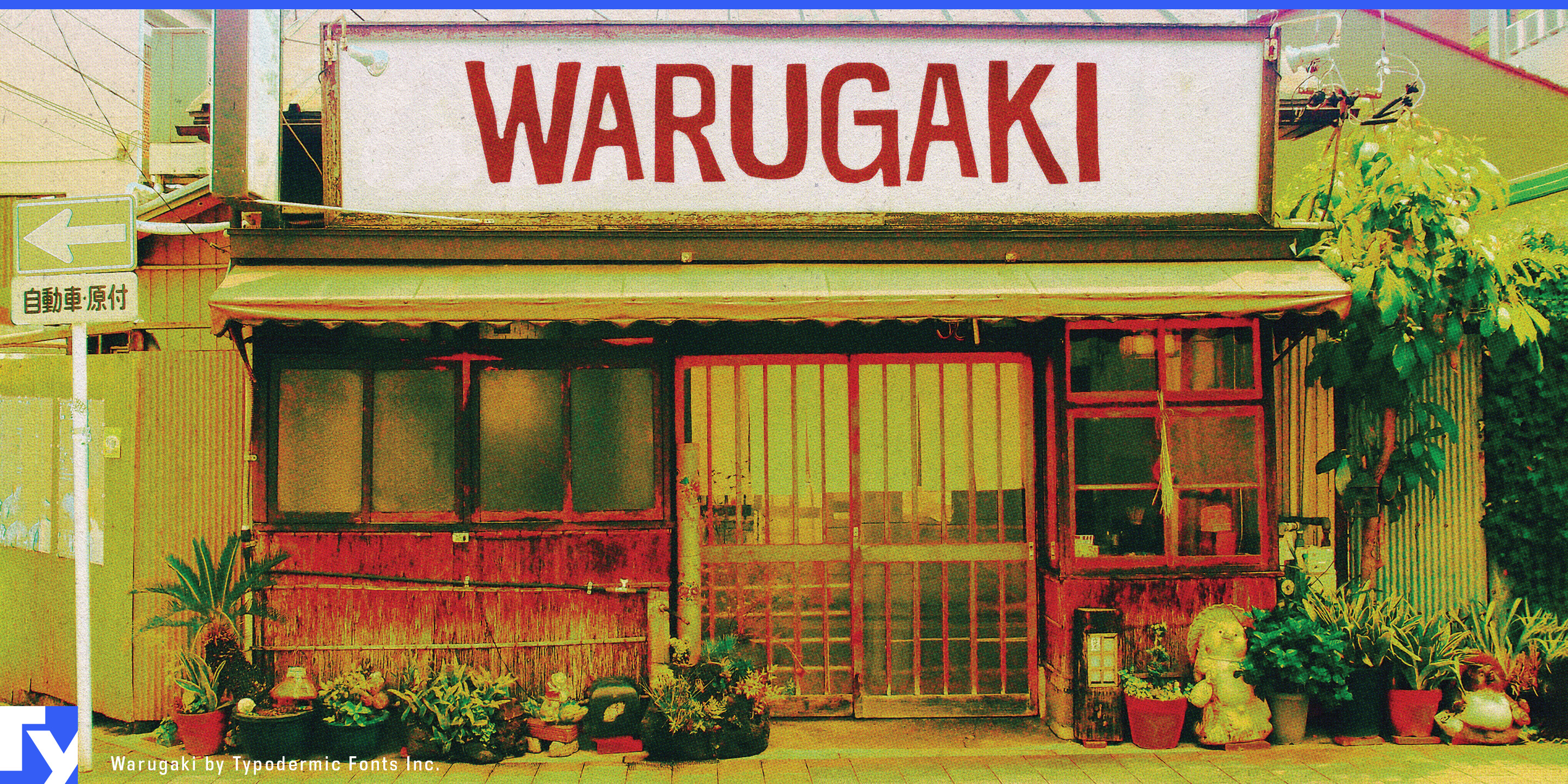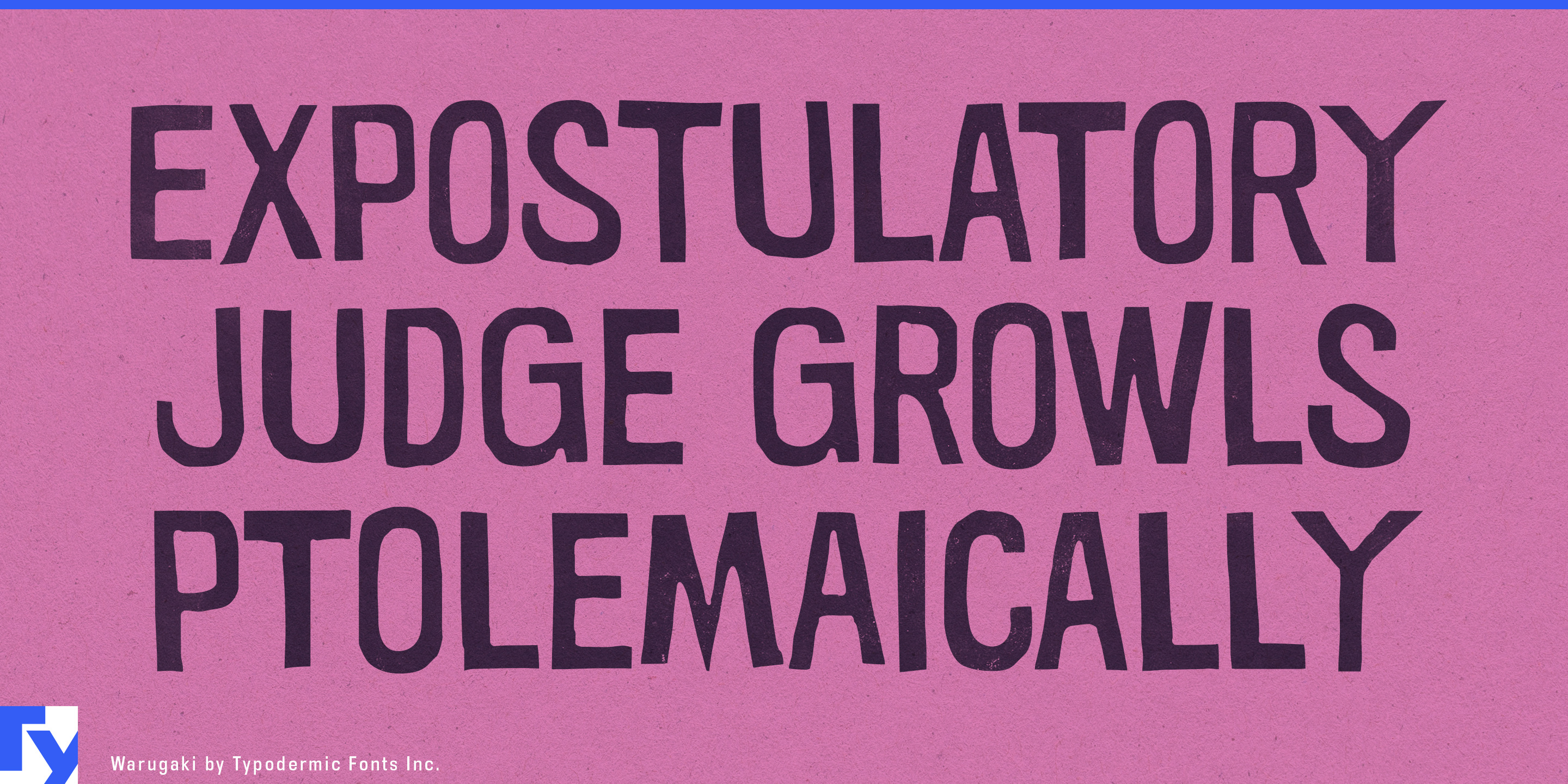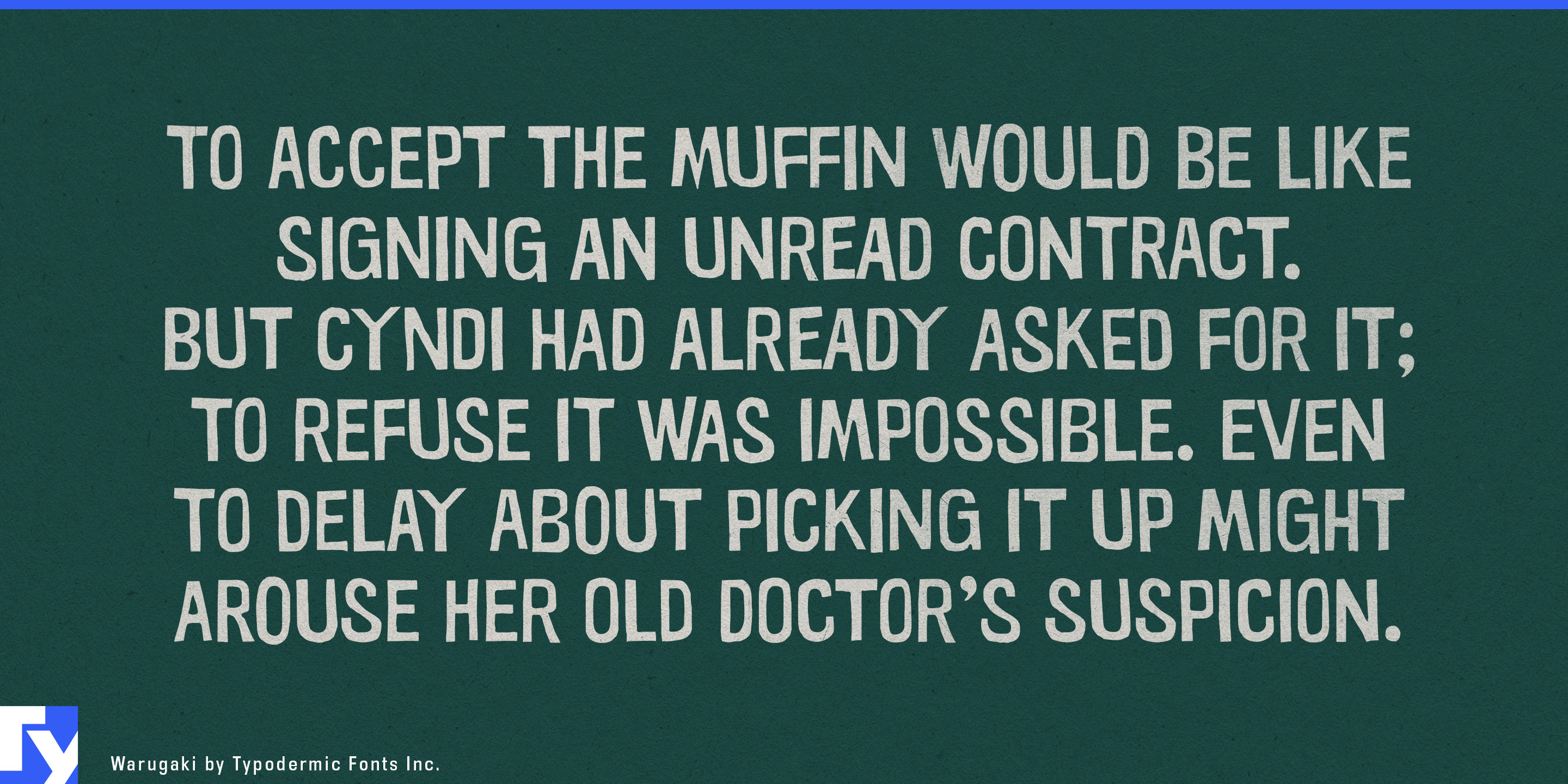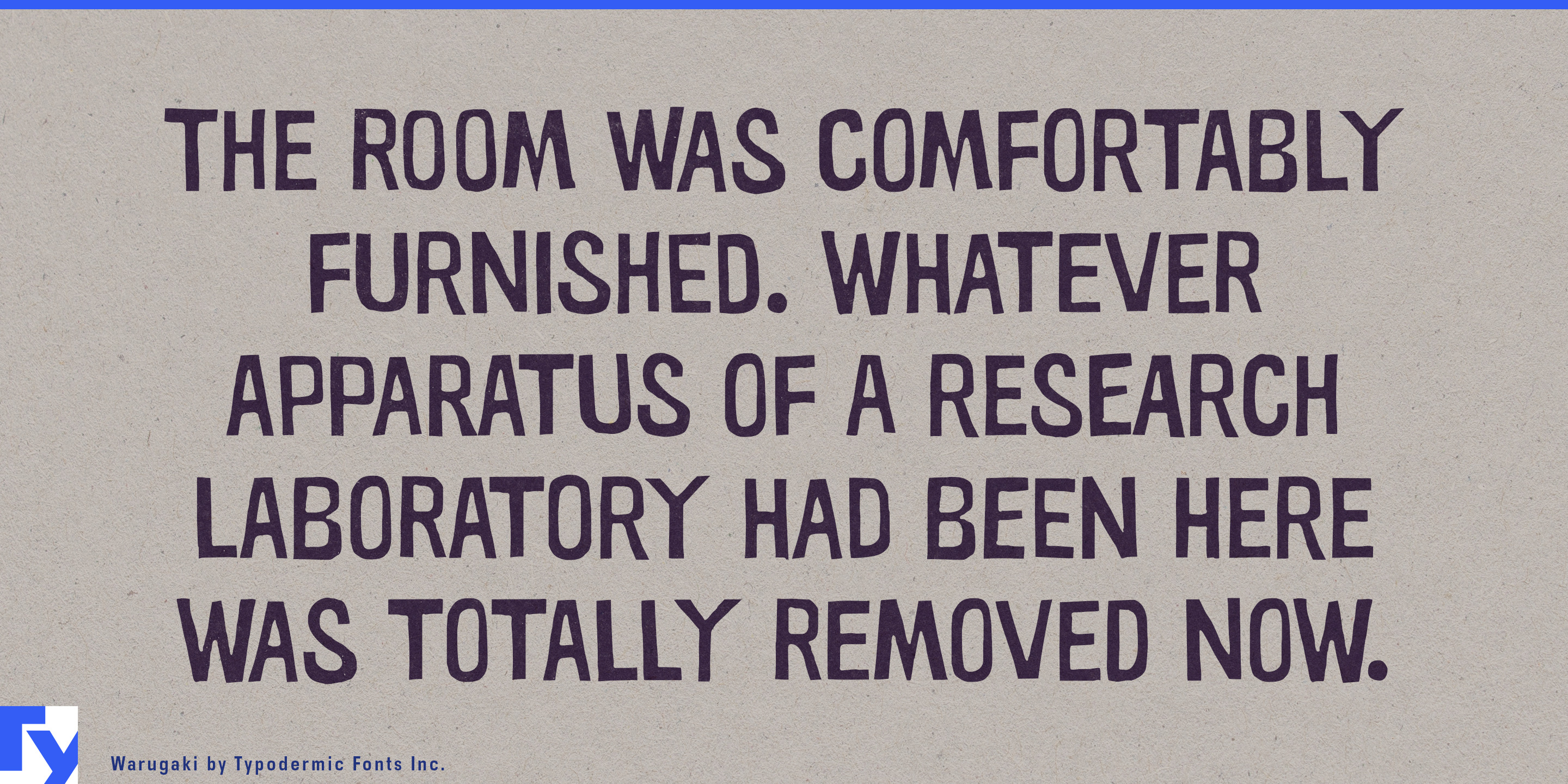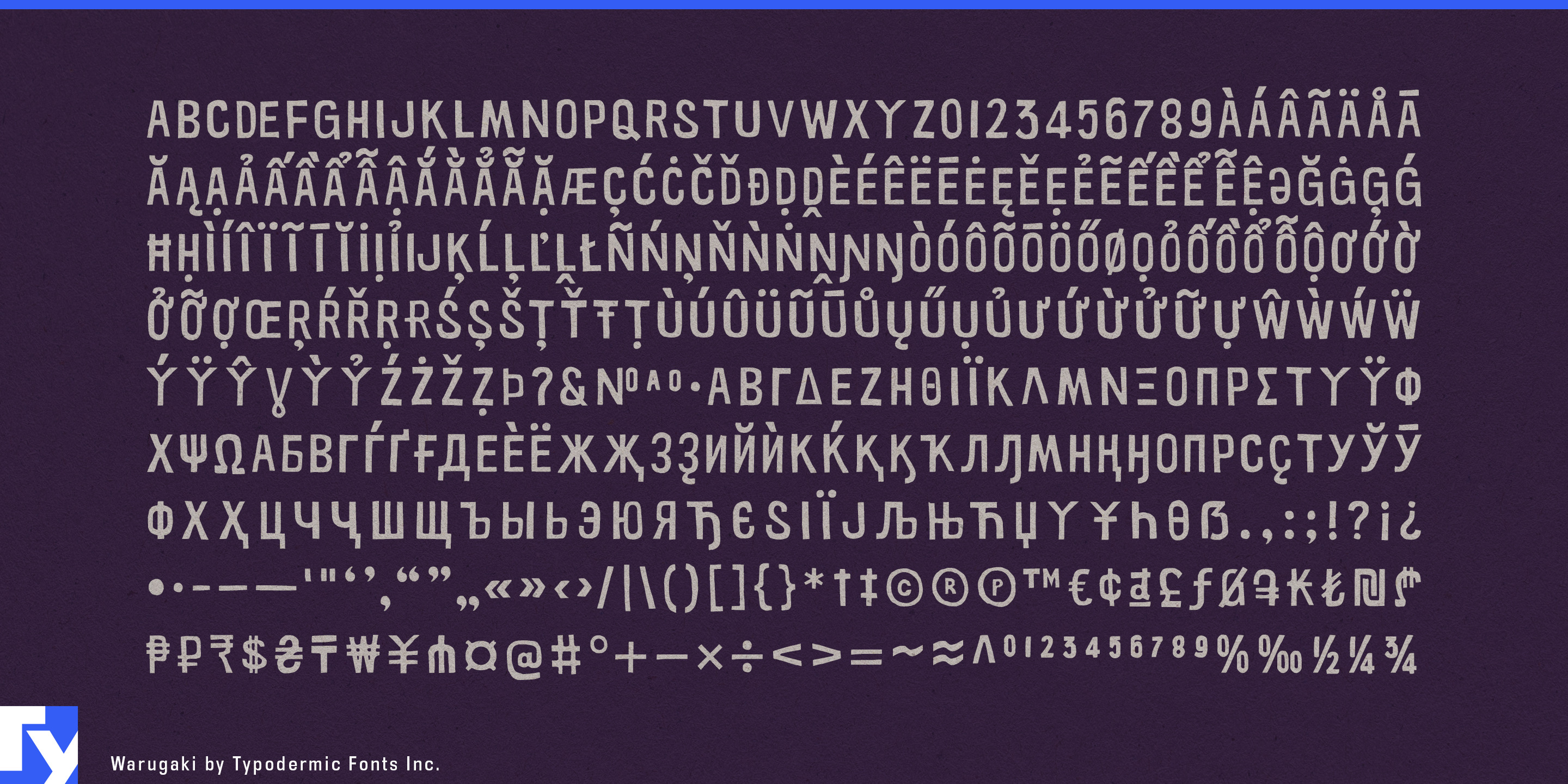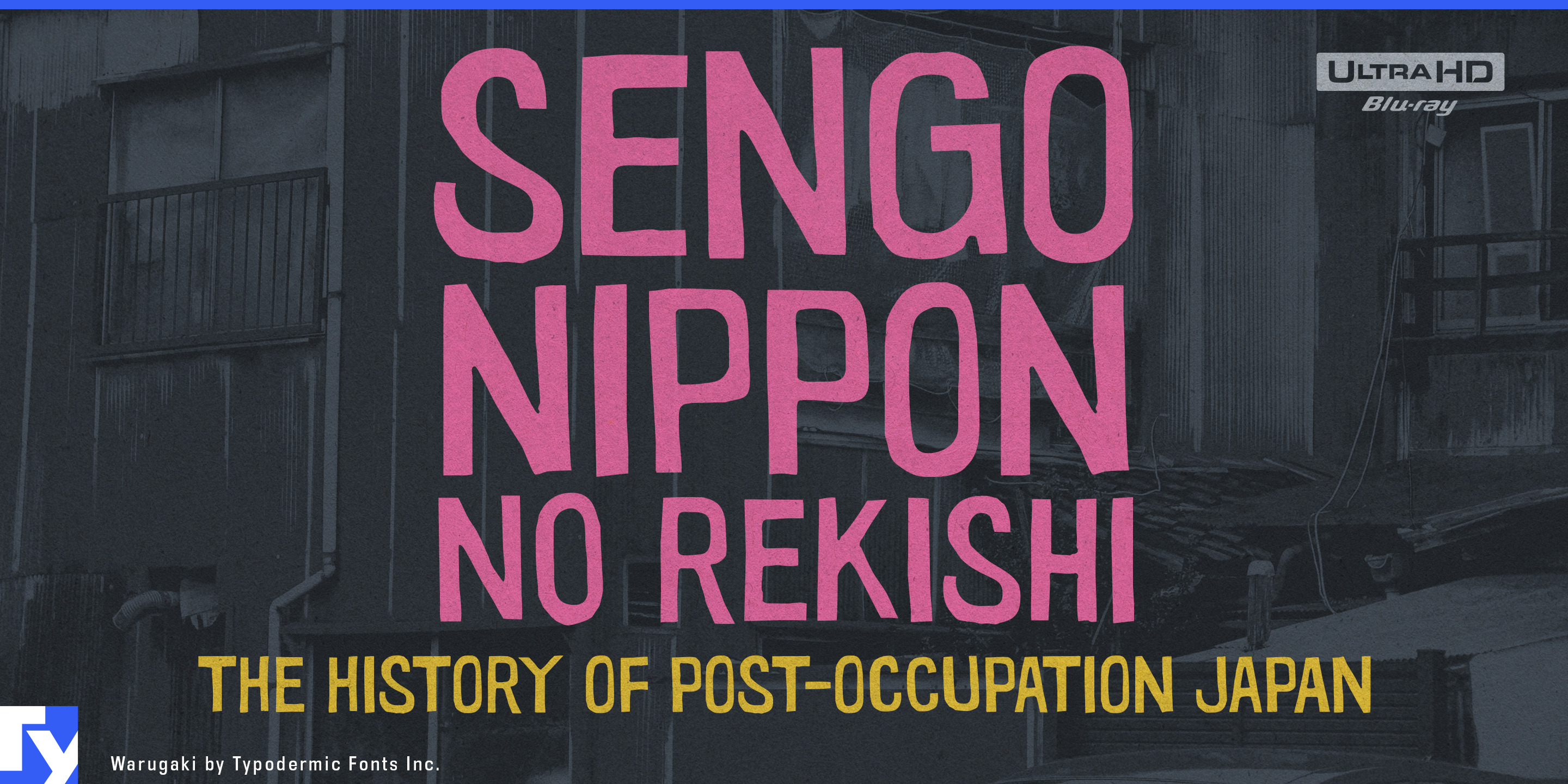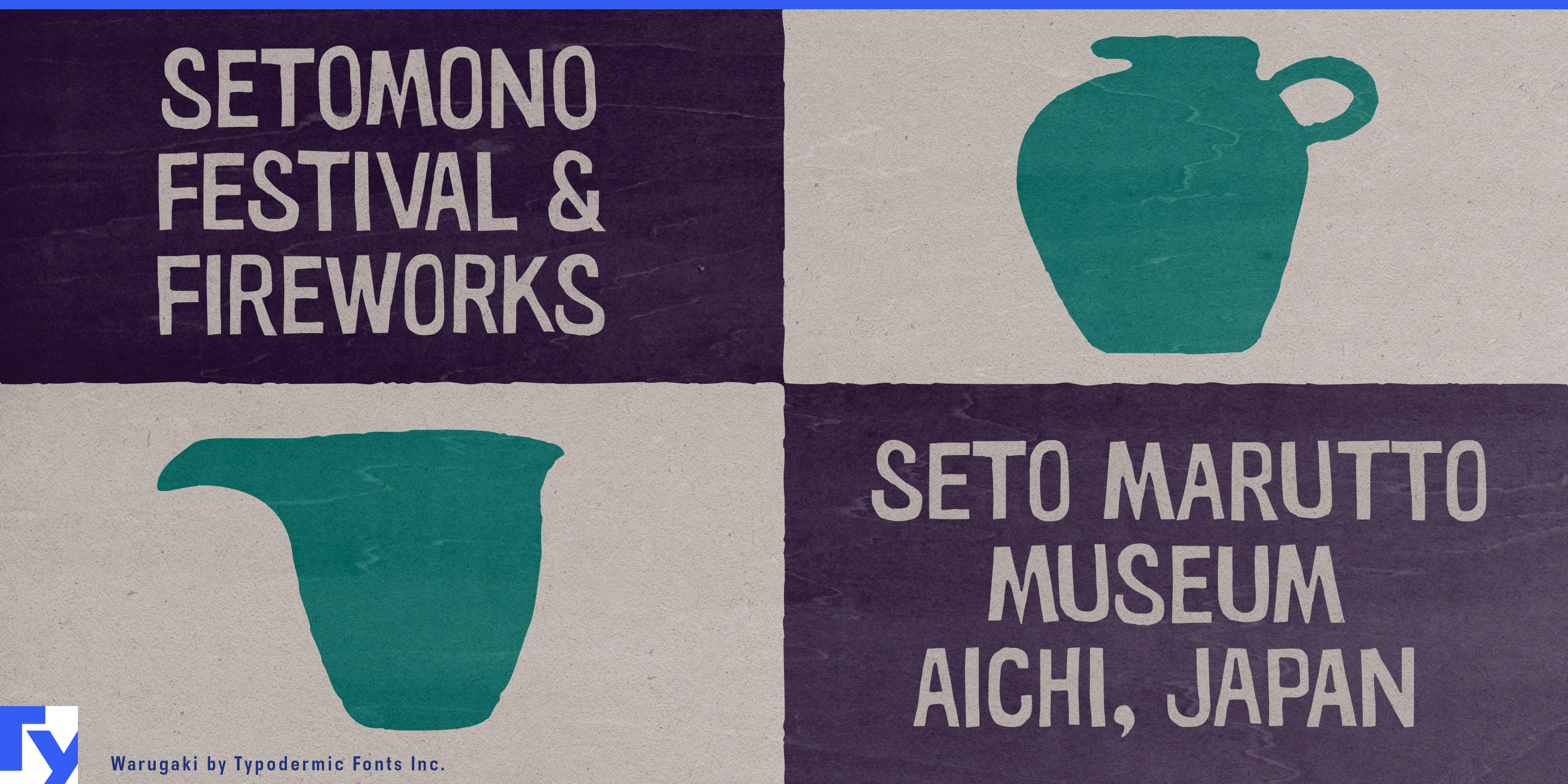
Warugaki
Warugaki captures the restless energy of mid-century Japanese design and channels it into a condensed, rough-edged sans serif. Each letter feels carved rather than drawn, giving the typeface a handmade immediacy that’s both compact and bold. It’s a look that recalls storefront signs, silk-screen posters, and improvised street lettering—raw but still sharply legible.
This makes Warugaki a natural fit for projects that thrive on grit and authenticity. Use it on book covers or exhibition graphics that dig into cultural history, or in documentary titles that call for a lived-in voice. In music, its dense rhythm works on album art, gig posters, and festival branding where space is tight but impact is everything. For packaging, it lends a tactile honesty to craft beer, street food, or streetwear labels, while still holding up in signage for indie shops or creative venues.
Warugaki supports a wide range of languages, making it versatile across regions and industries. Whether you’re building a cultural identity, shaping an independent brand, or designing graphics for subculture scenes, Warugaki delivers a compact punch of character without sacrificing clarity.